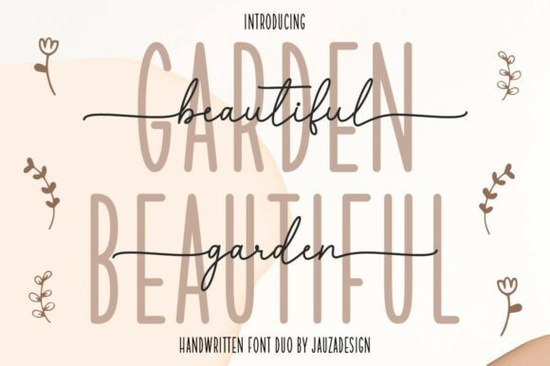
If you're looking for a handwritten font duo that blends soft elegance with clean structure, Beautifulgarden Font is worth exploring. Designed with both warmth and clarity in mind, it pairs a flowing modern script with a tall, minimalist sans serif ideal for creators who want versatility without sacrificing personality.
This kind of dual-font approach works especially well when you need contrast: one style for headlines or logos, another for supporting text or decorative accents. Whether you’re designing wedding invitations, boutique packaging, or lifestyle branding, the combination helps guide the viewer’s eye while keeping your design cohesive.
What makes this font duo stand out?
The script component of Beautifulgarden Font has a gentle, organic rhythm think handwritten love notes or artisanal product labels. It includes ligatures and alternate glyphs (thanks to PUA encoding), so you can easily access stylistic details without switching fonts or digging through character maps.
Paired with it is a tall, all-caps sans serif that’s stripped down but not sterile. Its height gives it presence, while its simplicity ensures readability even at smaller sizes. Together, they create visual harmony: one part romantic flourish, one part grounded clarity.
Compared to other script fonts like Barbie Valentines Outline or Blueberry, Beautifulgarden leans more toward refined femininity than playful whimsy. If you’ve used CasualBrush before, you’ll appreciate how Beautifulgarden offers more polish while still feeling handcrafted.
Who should use Beautifulgarden Font?
This font shines in projects where tone matters as much as typography:
- Wedding designers creating save-the-dates, menus, or signage that feel personal yet elegant.
- Small business owners branding natural skincare, floral arrangements, or handmade goods.
- Print-on-demand sellers making quote mugs, tote bags, or wall art with a soft, inviting aesthetic.
- Editorial designers working on lifestyle magazines or blog graphics that need a touch of warmth.
It’s less suited for tech brands or high-energy promotions this is a font for slow moments, thoughtful gestures, and curated experiences.
How do I get the most out of the duo?
Start by assigning roles: use the sans serif for primary messaging (logos, headers, product names) and the script for emotional emphasis (quotes, taglines, decorative elements). Because both styles share subtle design cues like consistent stroke weight and open spacing they feel like they belong together without being matchy-matchy.
If you’re layering text over photos (say, a floral background for a spring collection), the tall sans serif holds up better than delicate scripts. Save the flowing script for overlays on solid colors or minimal layouts where it won’t compete for attention.
And don’t overlook the PUA-encoded extras. In design software like Adobe Illustrator or Affinity Designer, you can access swashes, alternates, and connected letterforms through the Glyphs panel no plugins needed. That means you can fine-tune words like “love” or “forever” to look truly custom.
Before you start your next project, ask yourself:
- Does my brand or event call for softness and sophistication or energy and edge?
- Will I need extended language support? (This font focuses on basic Latin characters.)
- Am I using design software that supports OpenType features? (If not, you’ll still get the base letters, just fewer stylistic options.)
If the answer leans toward warmth, elegance, and intentional design, Beautifulgarden Font could be the quiet hero your next creation needs.